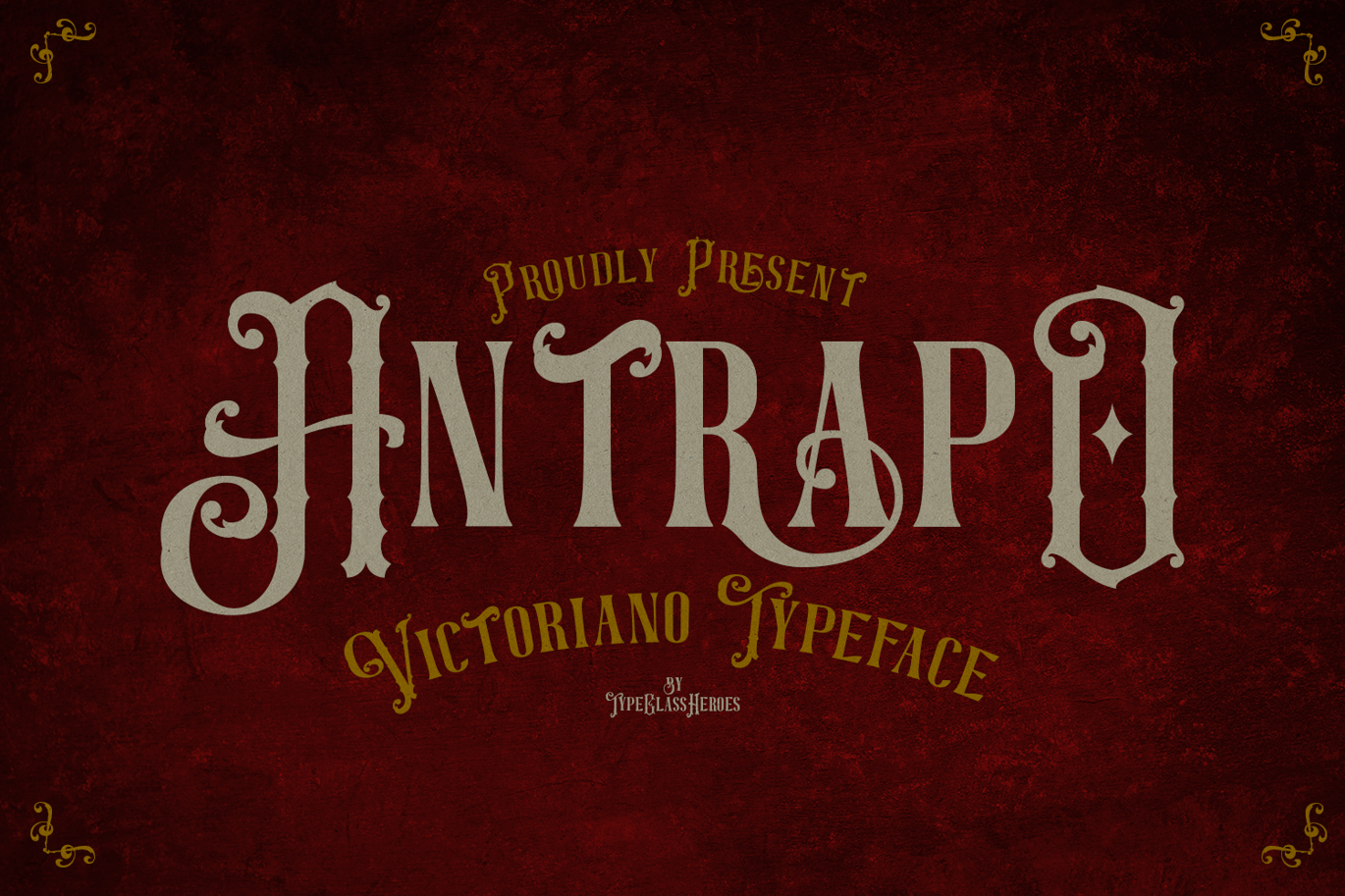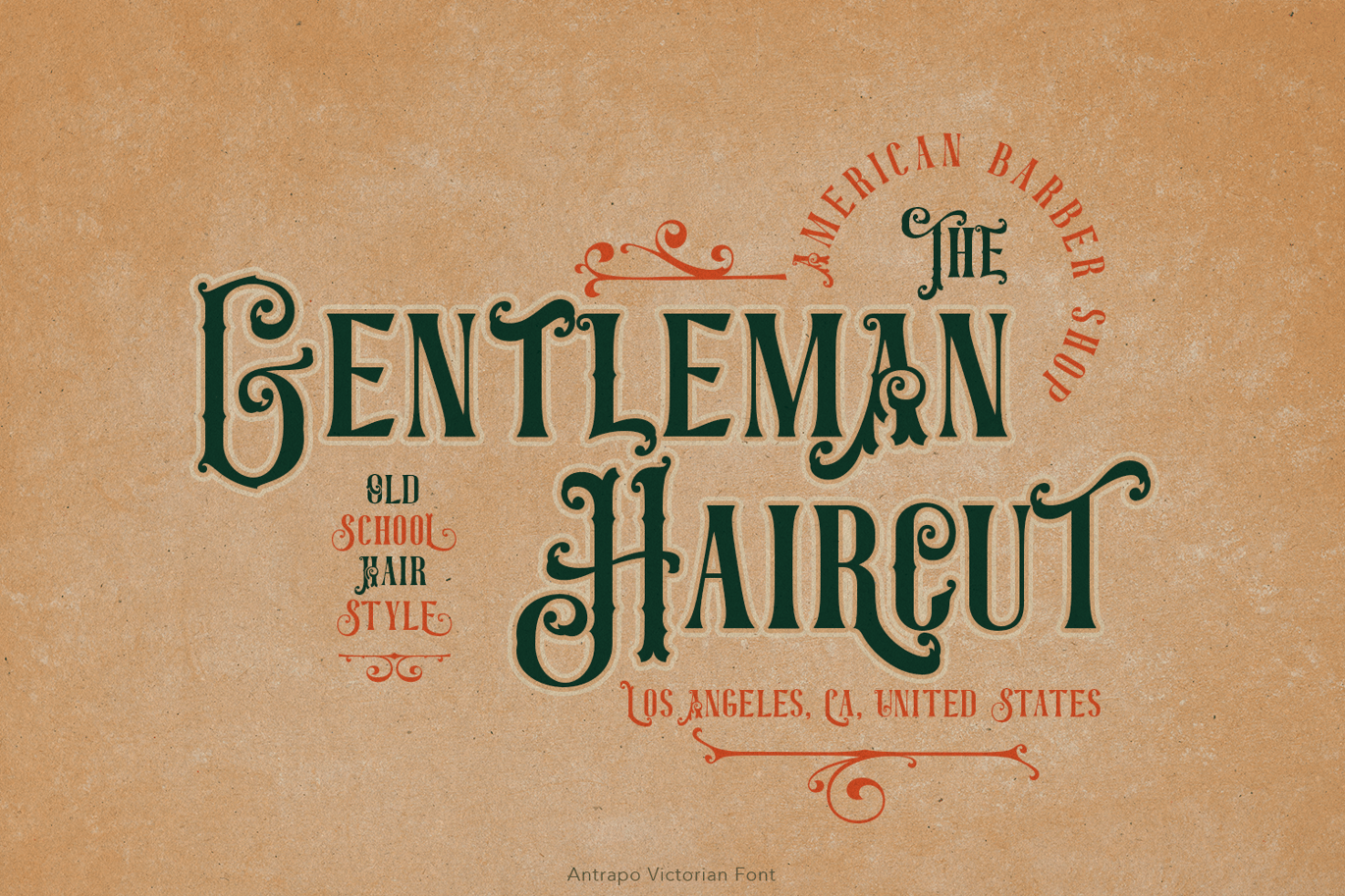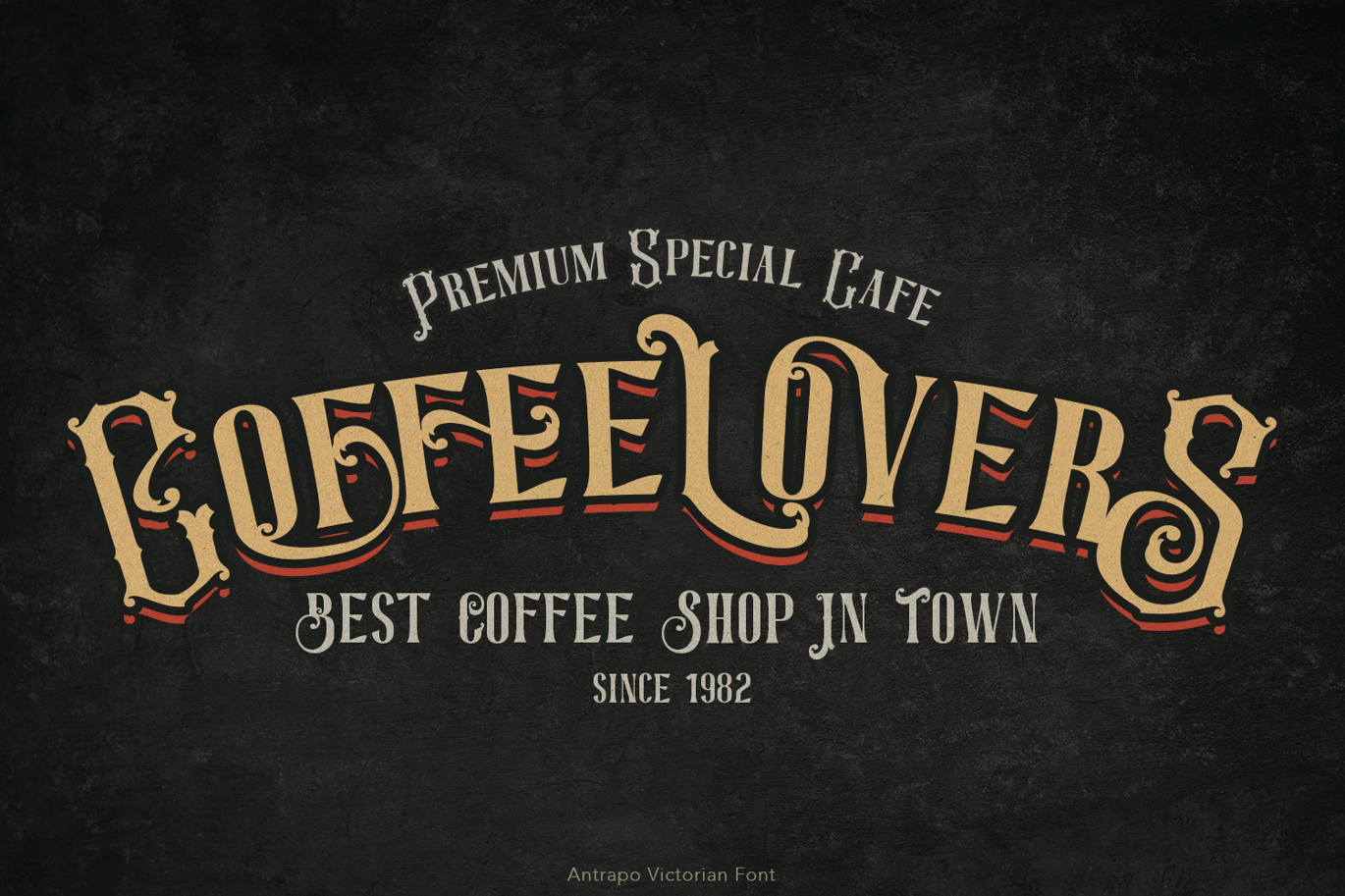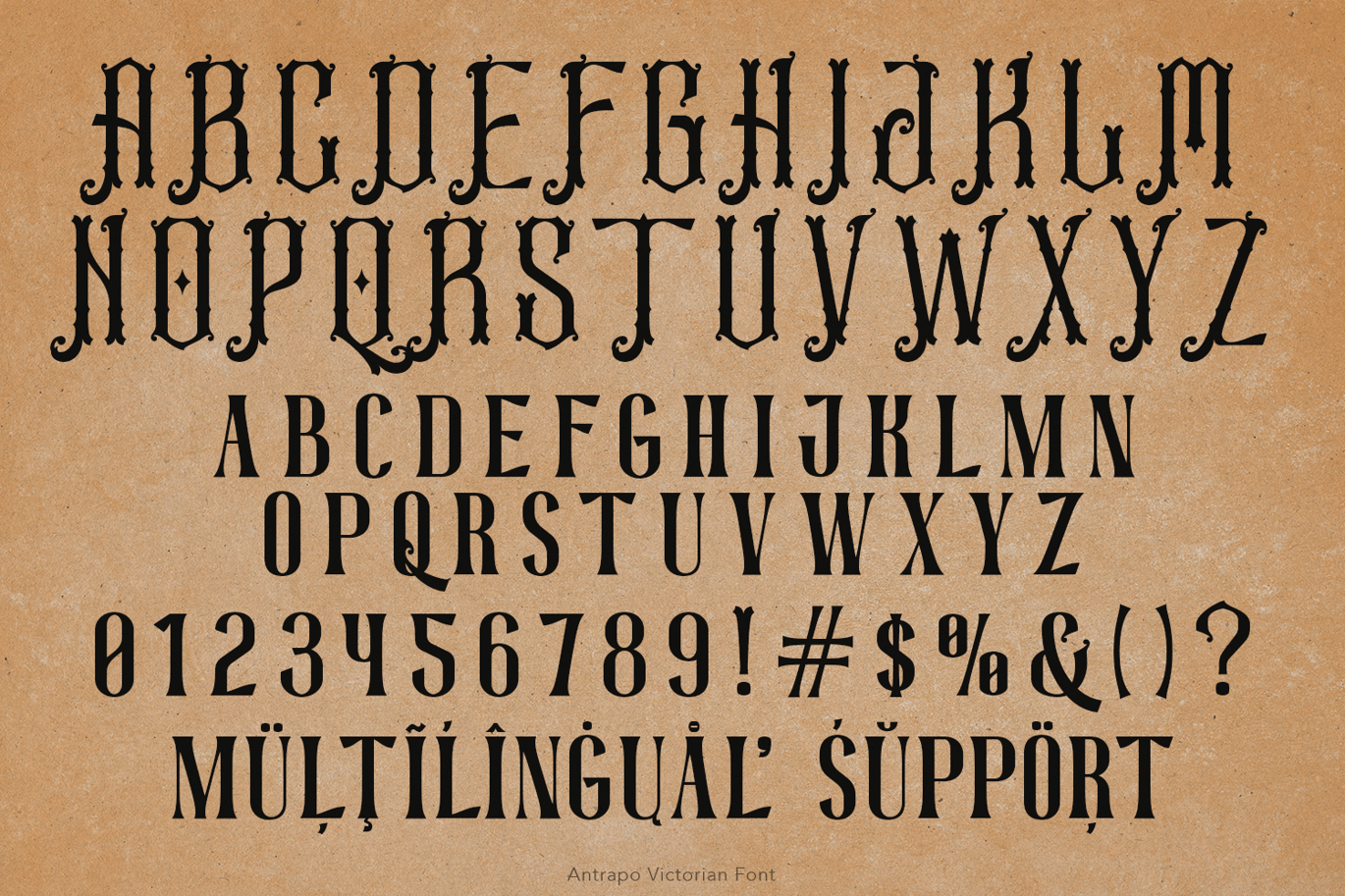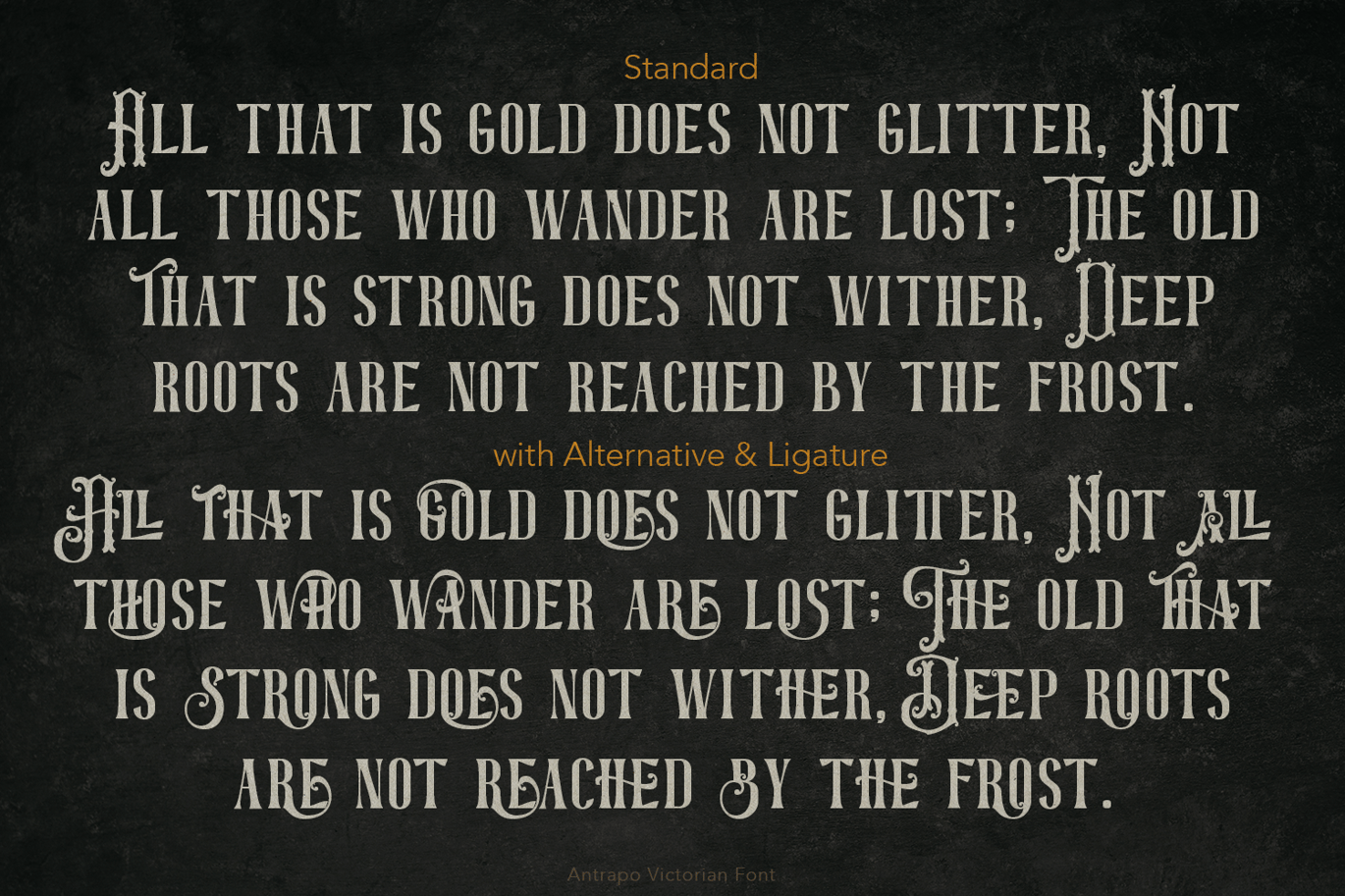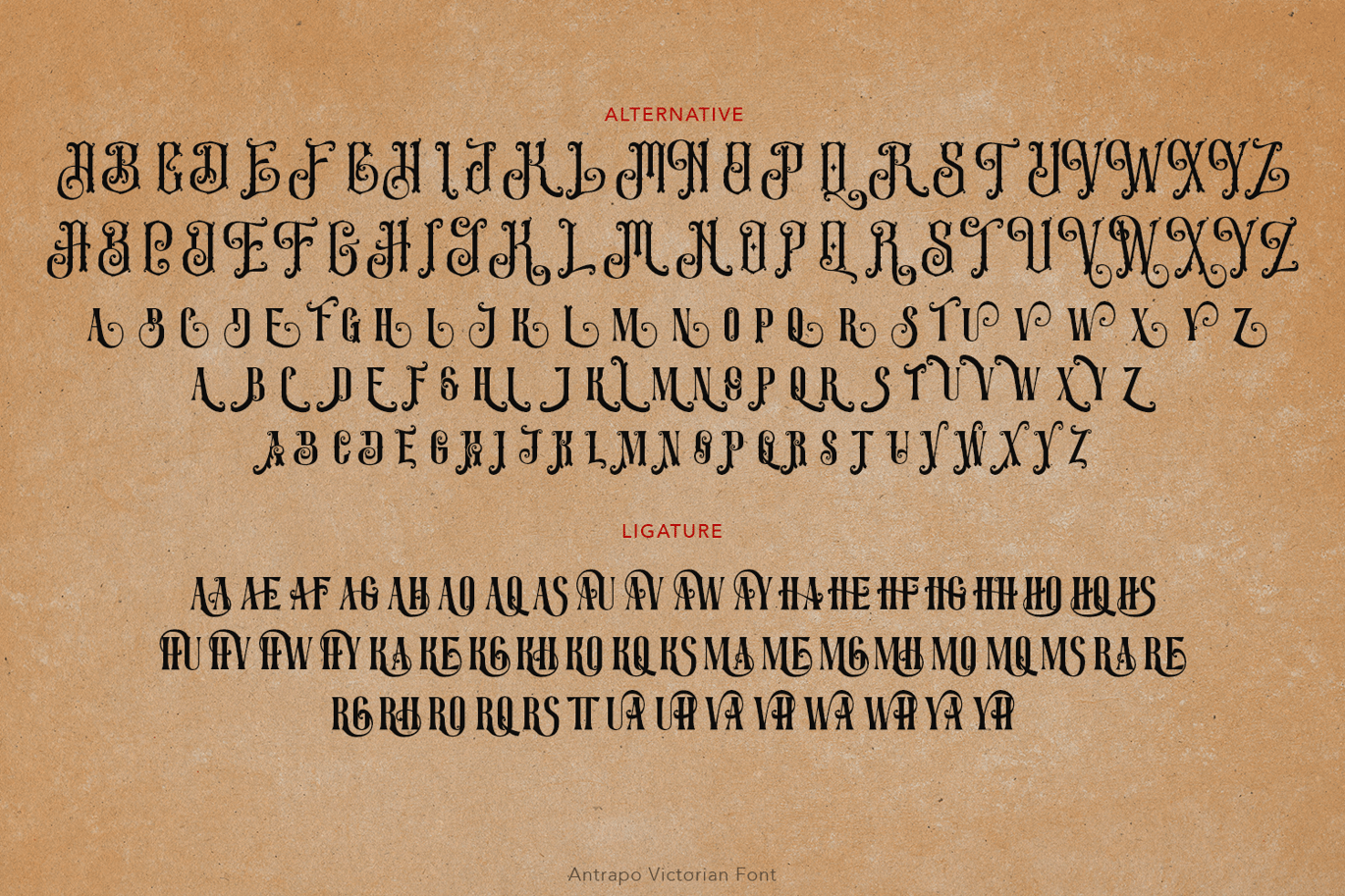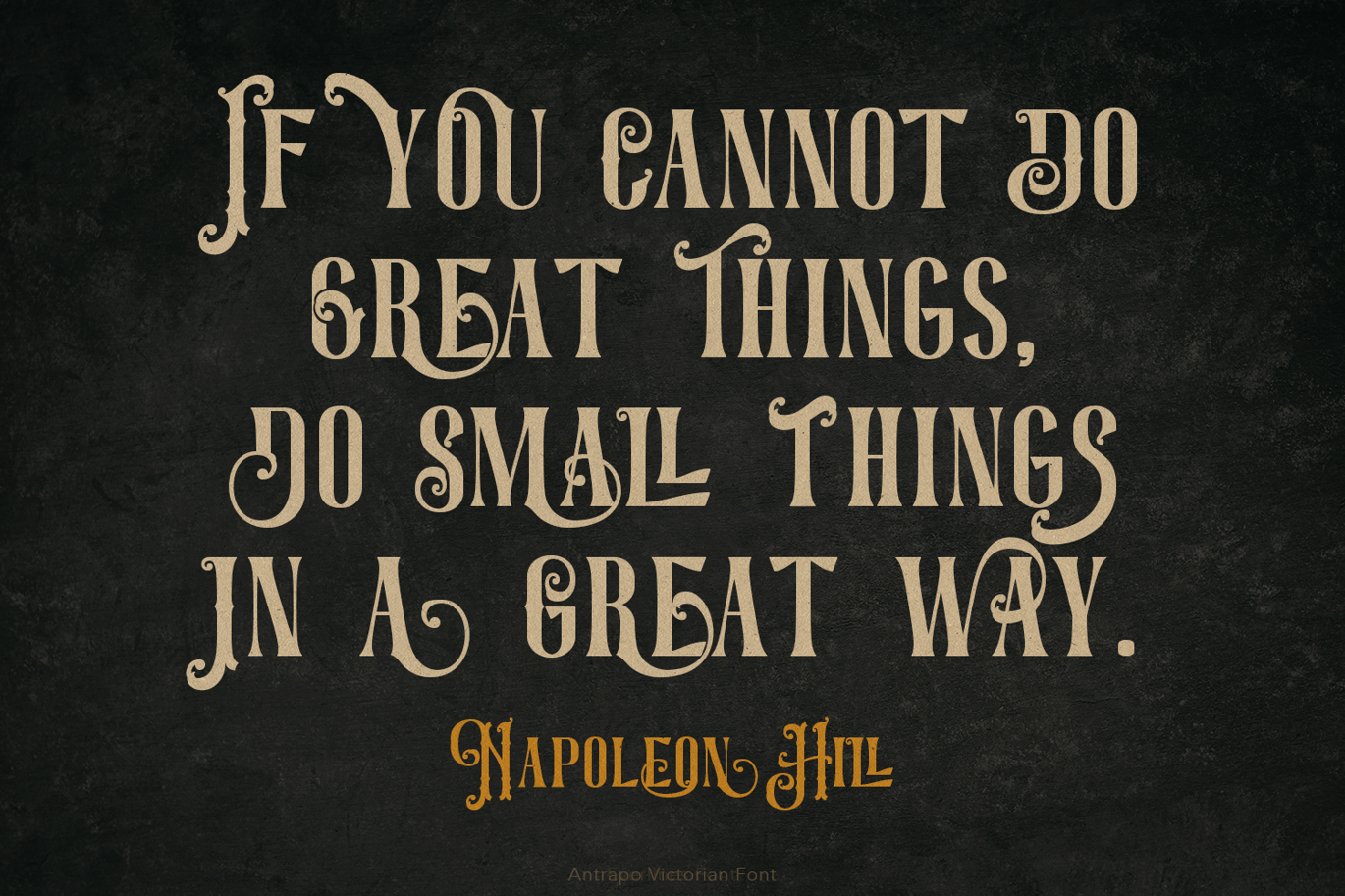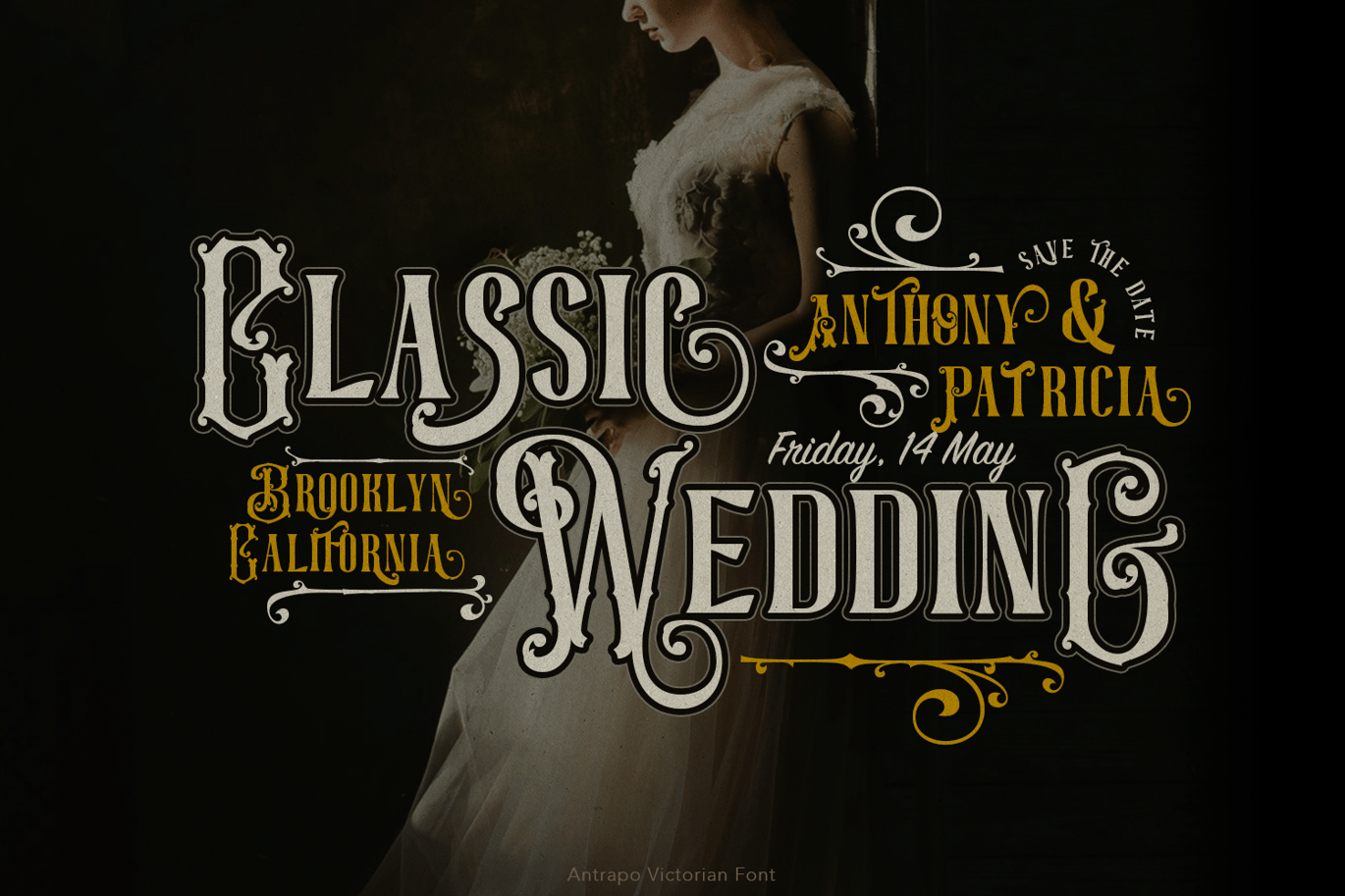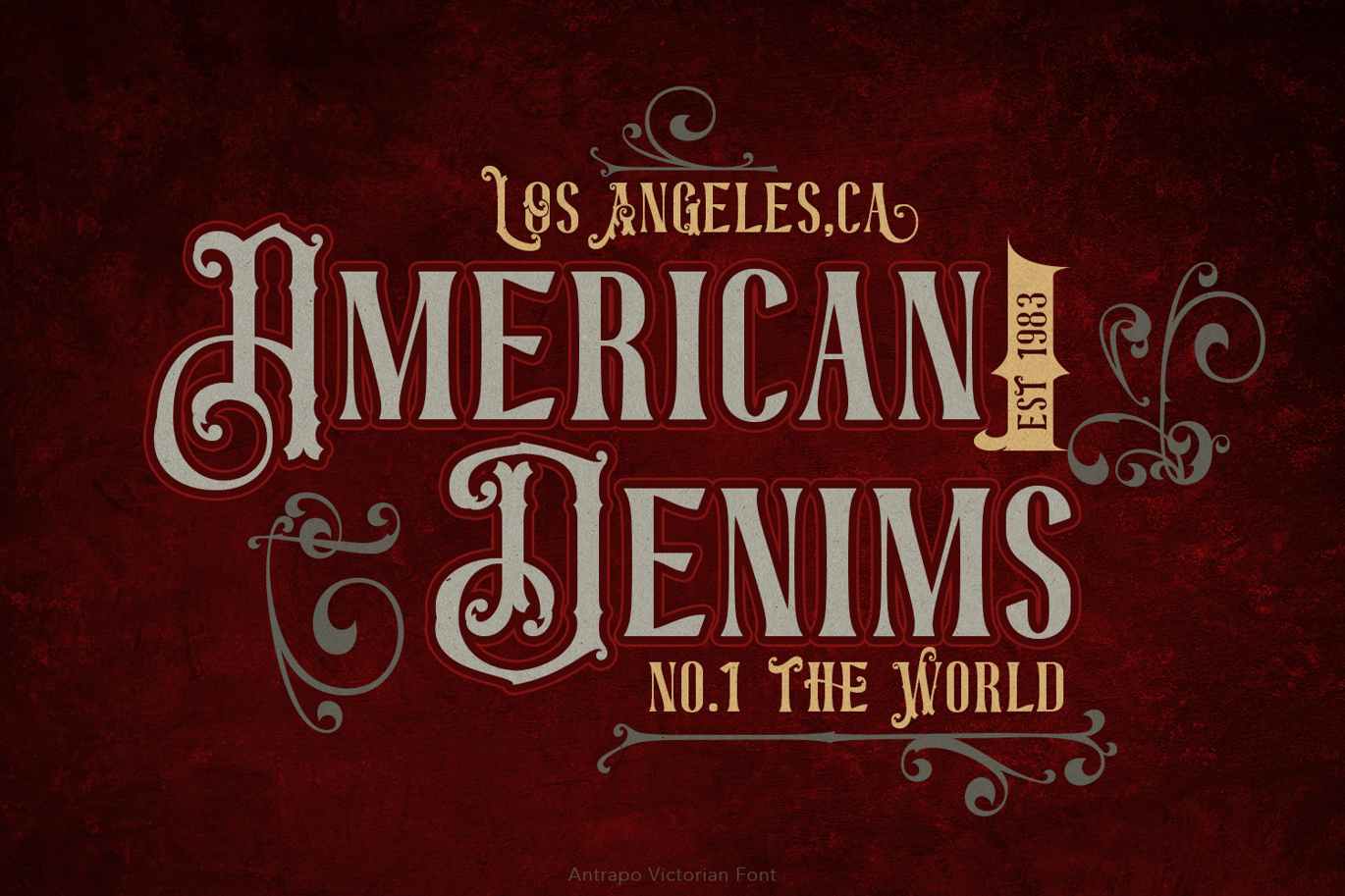
Antrapo Victorian Font
We proudly present Antrapo is an all-caps font with an elegant touch with a classic feel inspired by the typography from the 19th century, old fancy lettering, vintage illustration, and victorian calligraphy.
This font is very perfect for many display purposes in your product design if you want to a vintage and classic style, elegant and luxury. Such as book covers, product labels, logos badges, drink bottles, tattoo shop, coffee shops, fashion products, wedding invitation, etc.
Feature
- Number & Symbol
- International Glyphs
- Alternative